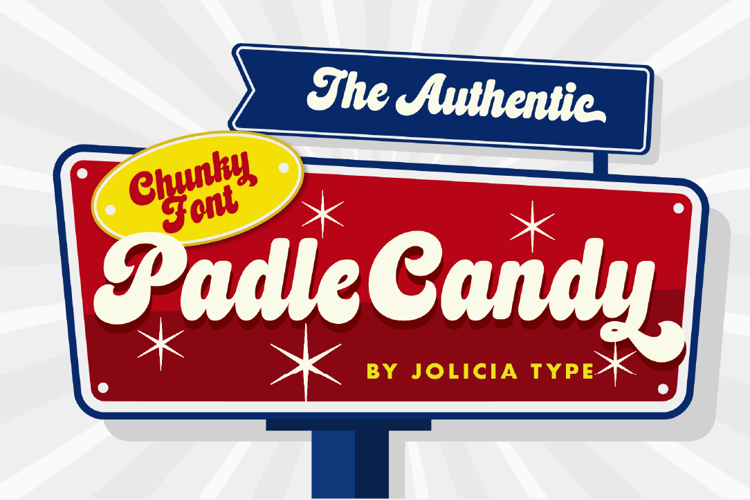
Padle Candy Font
Padle Candy is a playful chunky script font inspired by retro candy
packaging and joyful pop aesthetics. Featuring bold curves,
bouncy letterforms, and a smooth handwritten flow, this font
creates a sweet and energetic look perfect for branding, snack
packaging, posters, social media graphics, birthday invitations,
stickers, apparel, logos, and merchandise. Padle Candy
combines cute charm with strong readability, making every
design feel colorful, fun, friendly, and eye-catching.